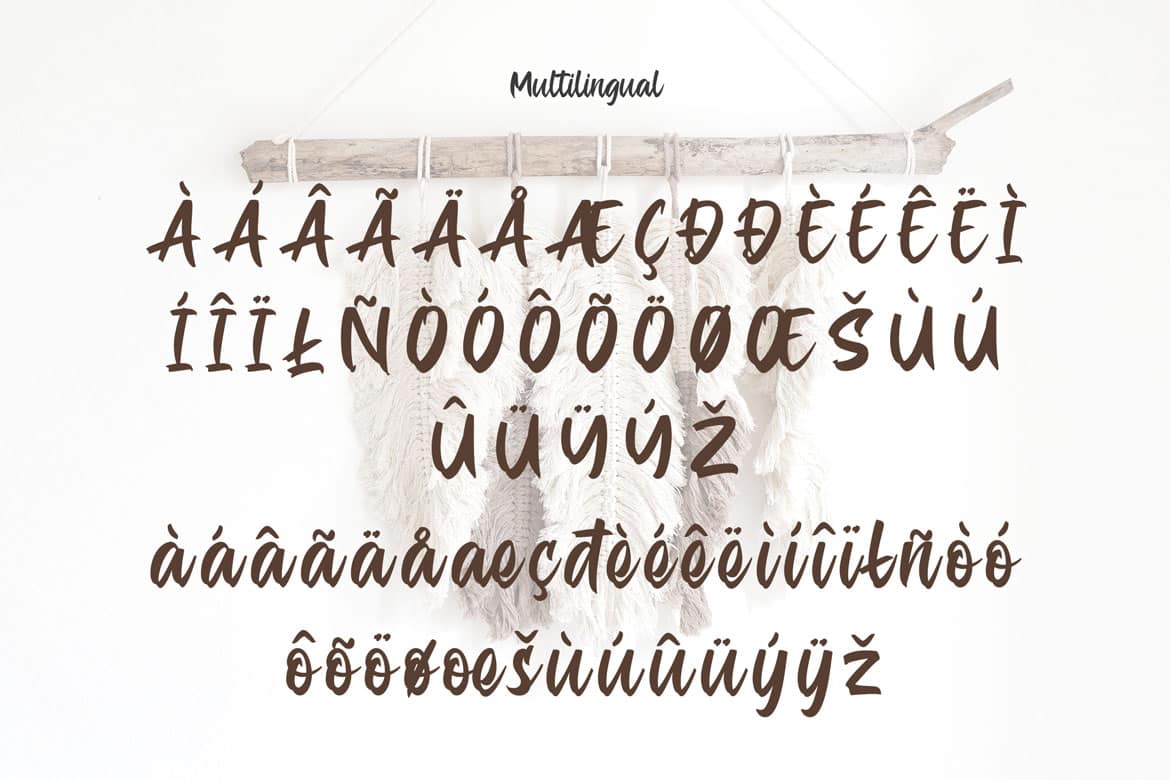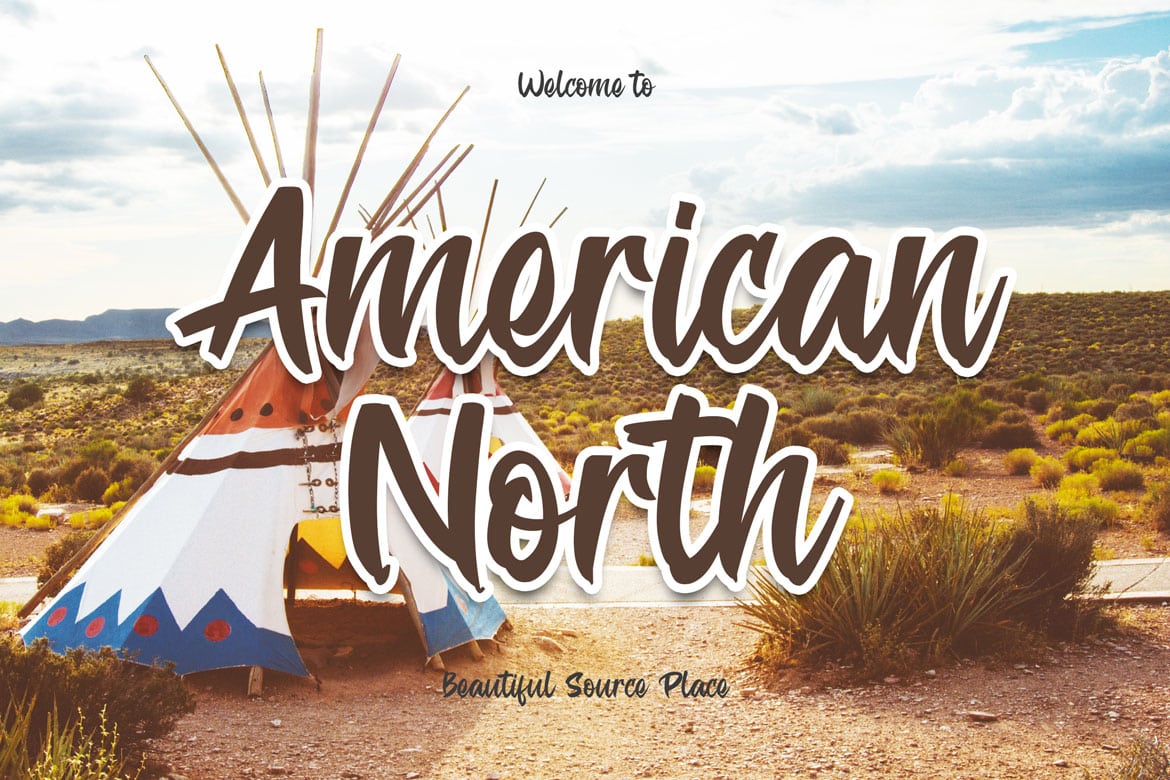
Darkspear is handwritten script font. It has vintage, elegant, old school, classy, and cool. It’s a great font for fashion, apparel projects, signature, album cover, logo, branding, magazine, social media, & advertisements, but also works great for other projects.
Highlight :
• Basic Latin A-Z and a-z
• Numbers
• Punctions